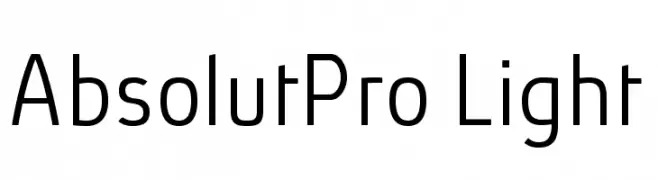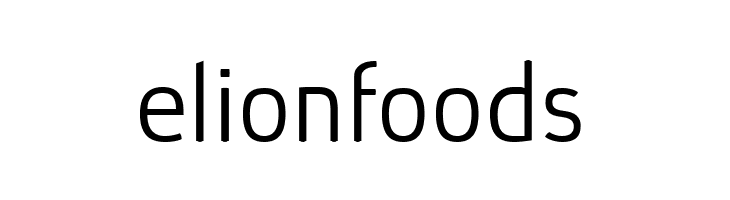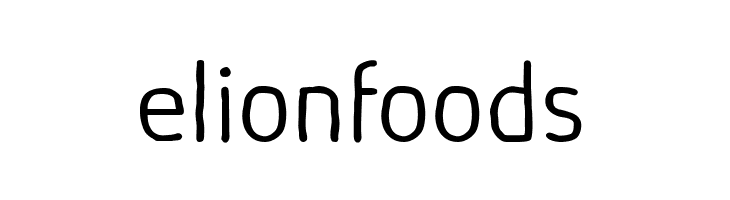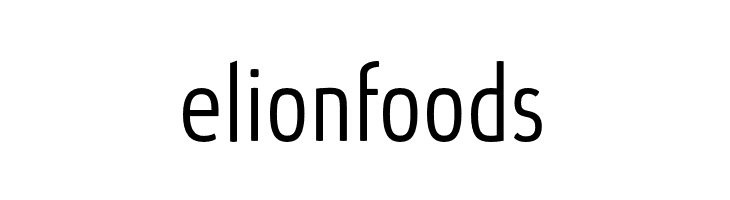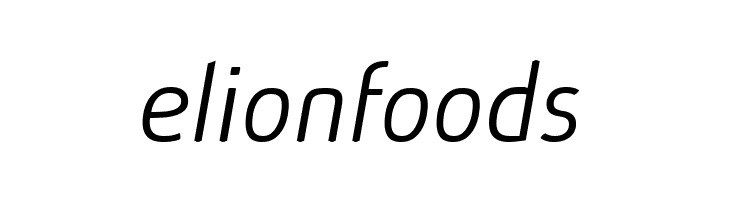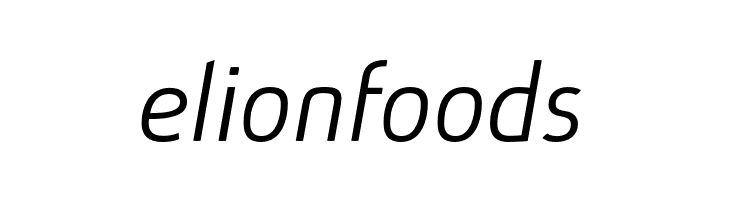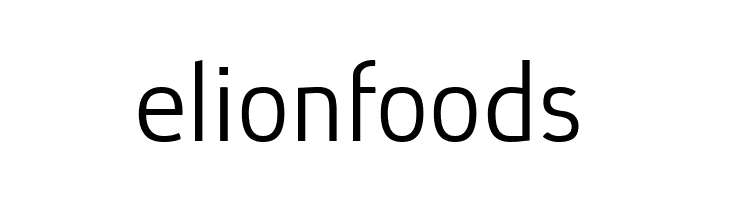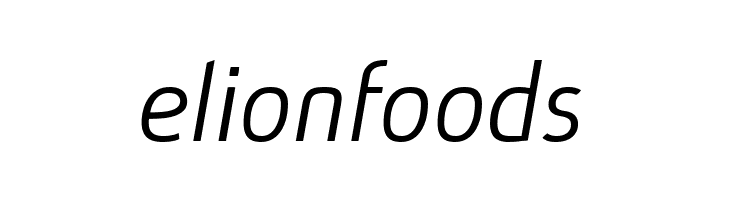
• Absolut Pro Light Italic reduced
A sleek, modern, light italic font with medium contrast and a streamlined appearance.
• Absolut Pro Light reduced
A modern, light sans-serif font with a clean and minimalistic design.
• Absolut Reduced Light
A clean, modern sans-serif font with geometric structure and light weight.
• Absolut Reduced Light Italic
A sleek, modern, light italic font with a streamlined appearance.
• Absolut Sketch Reduced Light
A playful, hand-drawn font with a sketch-like, artistic style.
• AbsolutCondensedRed-Light
A modern, condensed sans-serif font with a clean and minimalistic design.
• AbsolutPro-Light
A modern, light sans-serif font with a sleek and balanced design.
• AbsolutPro-LightIt
A sleek, modern, and slightly italic font with a minimalist design.
• AbsolutProCond-Light
A modern, condensed sans-serif font with a light and airy appearance.
• AbsolutRed-Light
A modern, geometric sans-serif font with clean lines and balanced proportions.